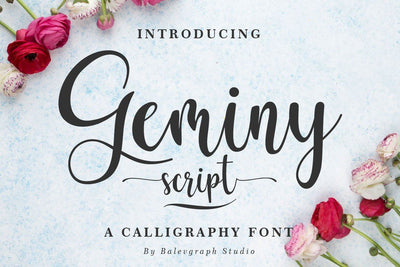
Geminy Calligraphy Font
Geminy is a delicate and elegant handwritten font. Its distinct and well rounded letters make this font a masterpiece. Fall in love with its incredibly versatile style and use it to create spectacular designs!
- Ligature & Alternate